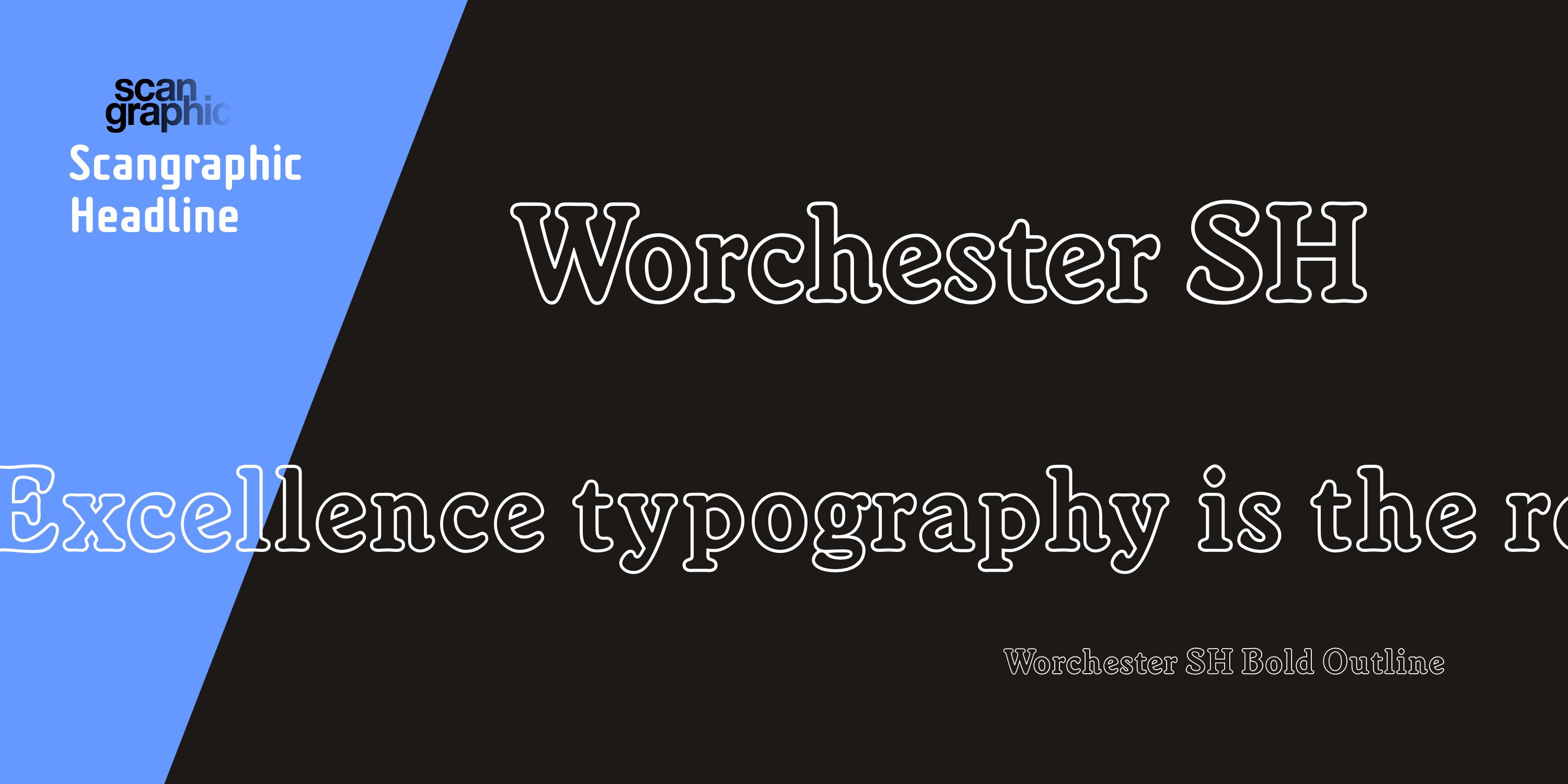
Worchester Round SH Font is perfect for English countryside branding, traditional British pub signage, cozy cottage cafe menus, heritage tourism campaigns, classic English garden centers, artisan pottery packaging, countryside bed & breakfast logos, and charming British cultural marketing materials. This welcoming typeface excels in applications where British warmth and countryside charm are essential.
What makes Worchester Round SH Font so exciting is its heartwarming ability to capture the gentle hospitality and timeless charm of English countryside culture through soft, rounded letterforms that embody the cozy comfort of traditional British life and the welcoming spirit of countryside communities. The font features friendly character shapes with English influences and countryside styling that evoke images of rolling green hills, thatched-roof cottages, and the warm atmosphere of traditional English hospitality. Its countryside-focused design philosophy combines British authenticity with contemporary accessibility, making it perfect for heritage brands seeking to convey traditional warmth, countryside comfort, and connection to English communities and rural heritage culture.
Worchester Round SH Font belongs to the countryside serif font family, specifically designed for British heritage and rural tourism-themed branding applications. This typeface family emphasizes welcoming visual warmth through countryside-inspired styling and English character elements, ensuring authentic rural presentation across various heritage tourism and British countryside-focused design projects.
Experience English countryside charm with Worchester Round SH Font Free Download, a typeface that embodies the welcoming warmth of British heritage and countryside hospitality. This charming font delivers exceptional comfort for heritage applications, featuring comprehensive character sets with countryside symbols and British punctuation marks that capture the essence of rural tradition and English hospitality. Its warmly rounded letterforms maintain excellent readability while preserving the authentic countryside aesthetic across various sizes, from intimate tea shop menus to large heritage site entrance displays. The font's distinctive countryside personality makes it invaluable for designers creating British brands, heritage materials, and countryside content where conveying warmth, tradition, and English countryside authenticity is crucial for engaging heritage tourism audiences and British culture communities seeking authentic rural experiences and welcoming, traditional English countryside hospitality.